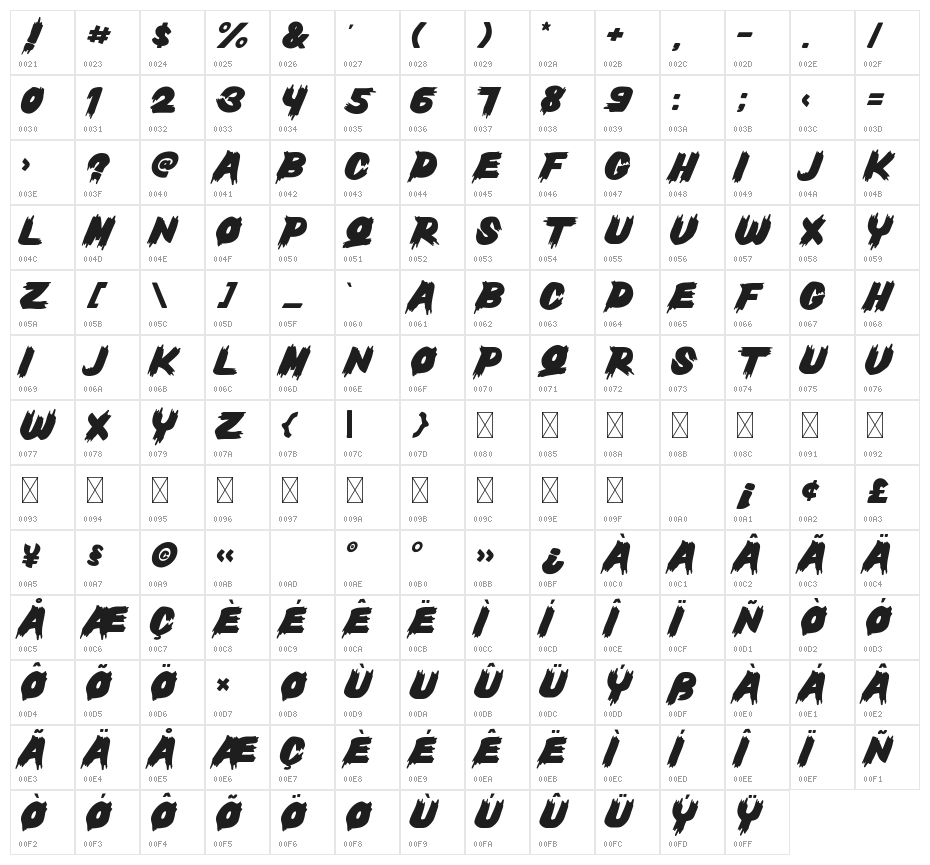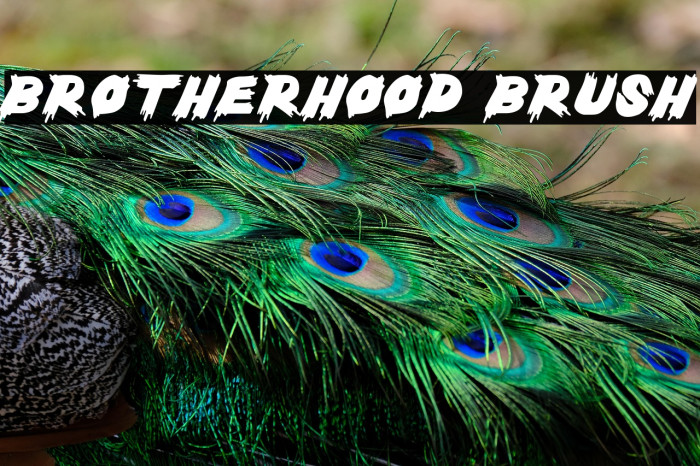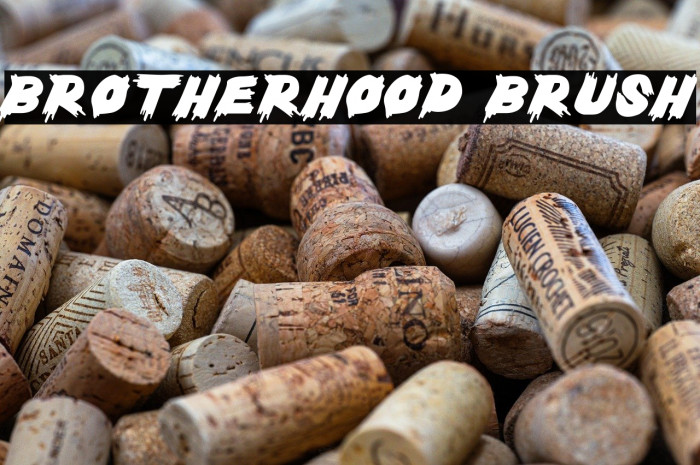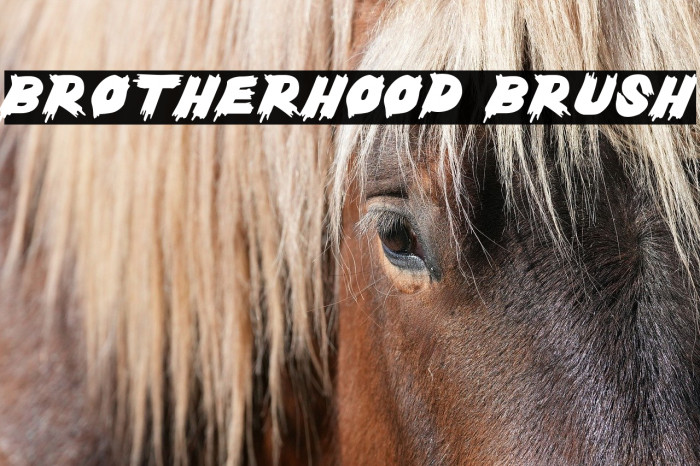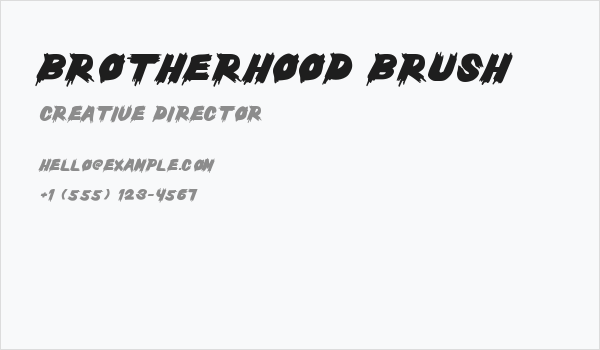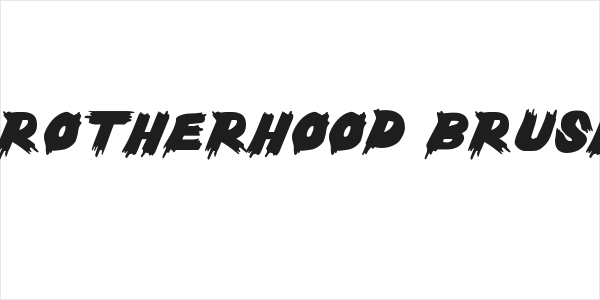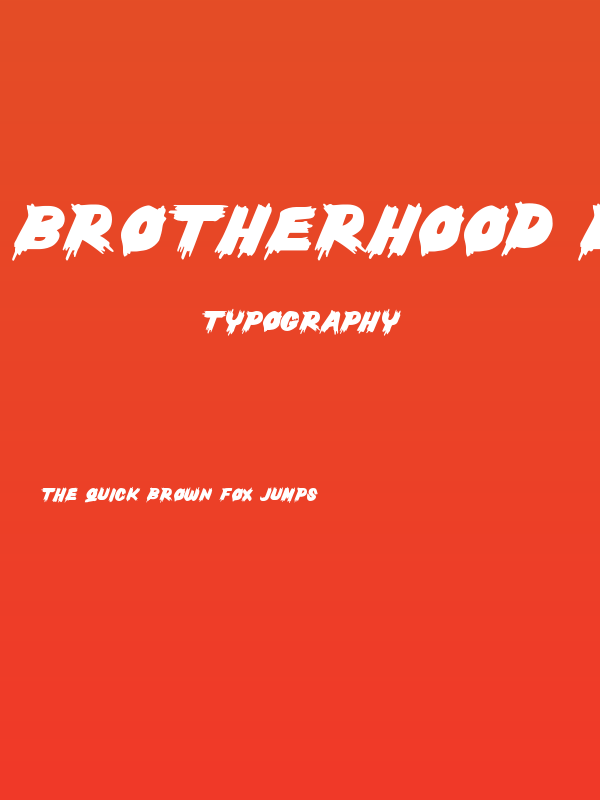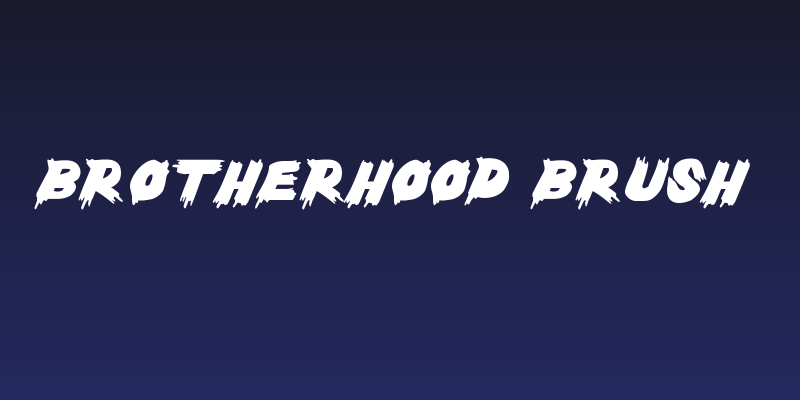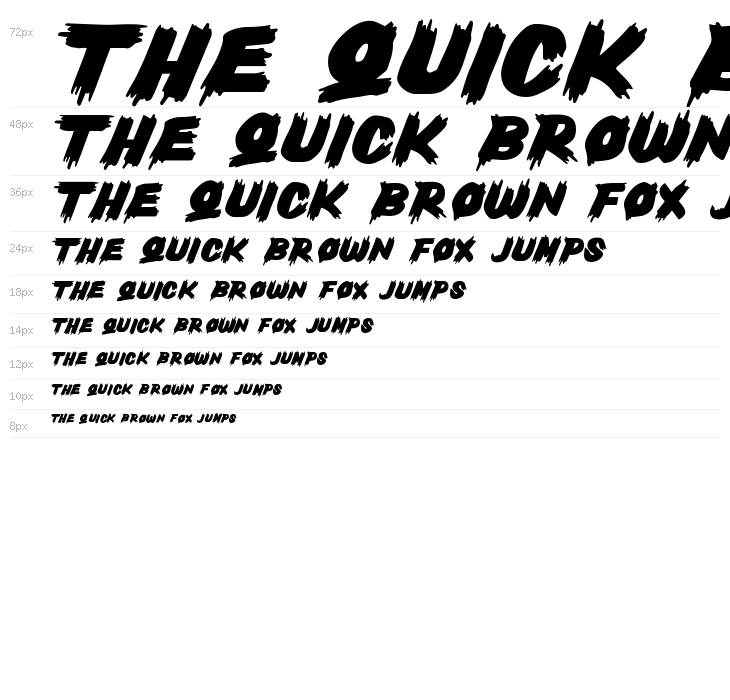
Brotherhood Brush Font
Brotherhood Brush Description
This font features a bold, dynamic brush style that exudes energy and movement. The strokes are thick and irregular, giving it a hand-painted appearance. Each character is unique, with jagged edges and varying stroke widths that create a sense of spontaneity and artistic flair. The uppercase and lowercase letters maintain a consistent style, while the numbers and special characters integrate seamlessly with the overall design. This font is perfect for projects that require a bold, eye-catching statement, such as posters, headlines, and branding materials. Its distinctive style makes it stand out, providing a creative and artistic touch to any design.
| Proposed Projects | Ideal for posters, headlines, branding, and any design needing a bold, artistic touch. |